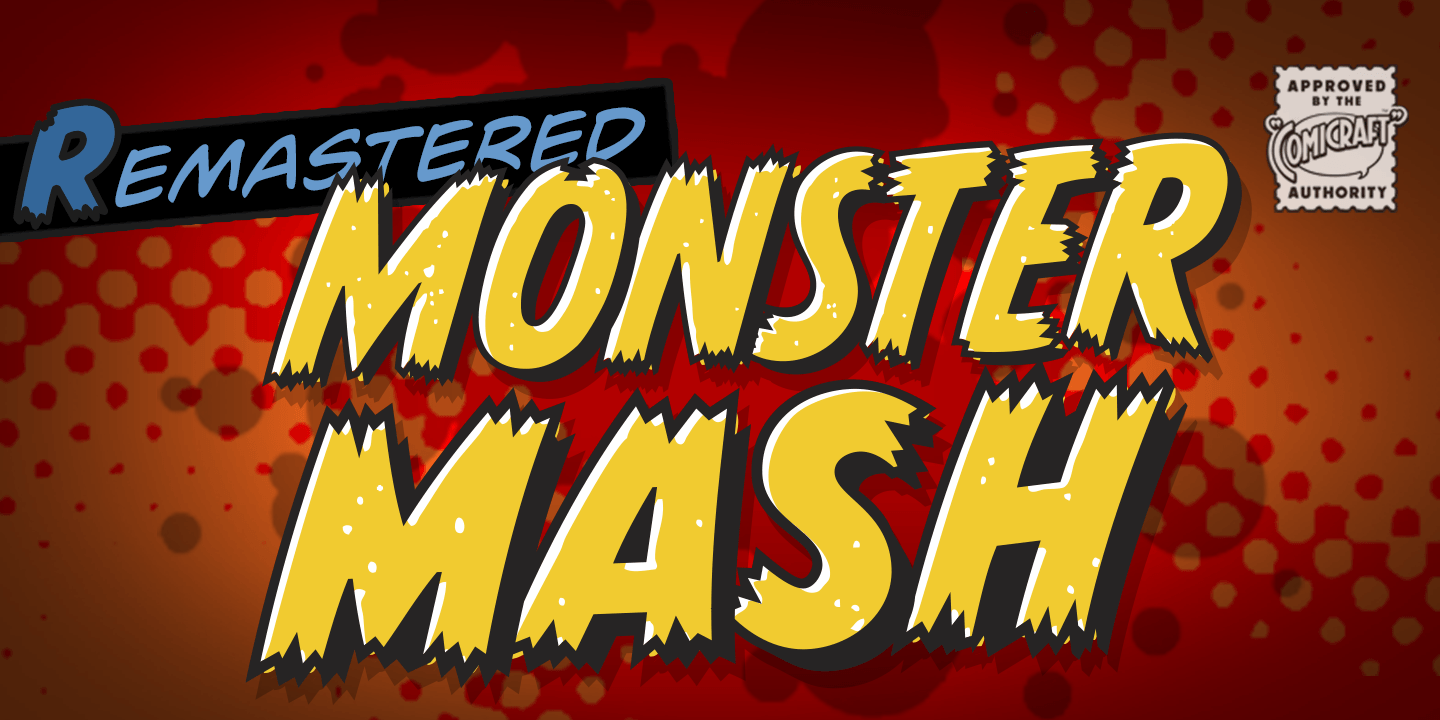
Monster Mash Font
Monster Mash Font - The world’s greatest comic book fonts! Web it’s called monster mash! Great for use in comics book and horror! Web monster mash complete family pack | fonts.com.